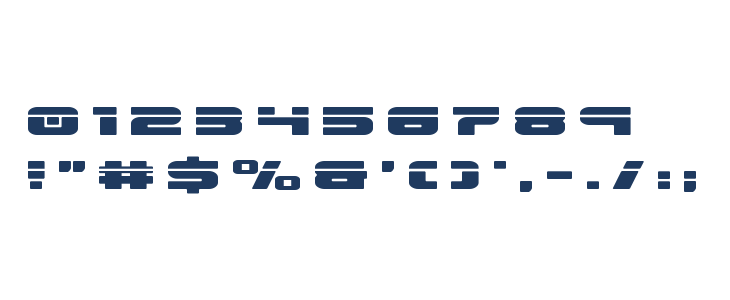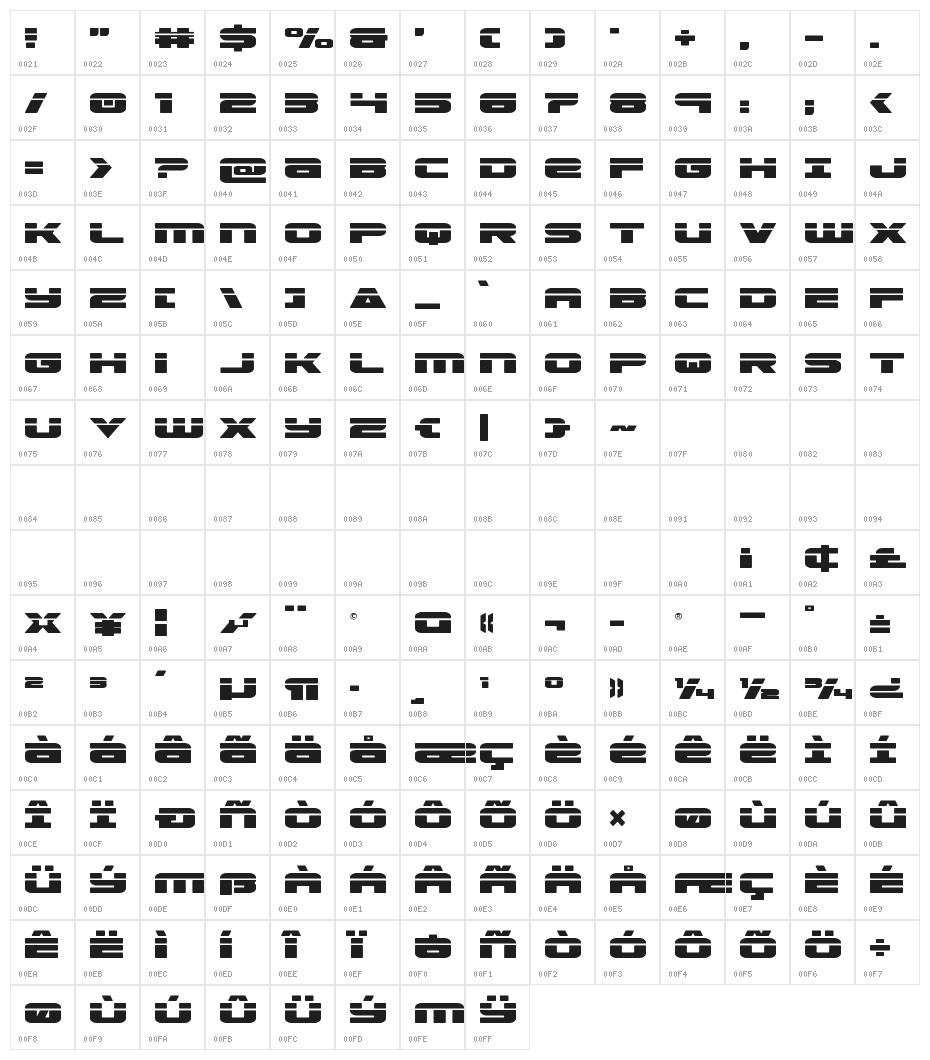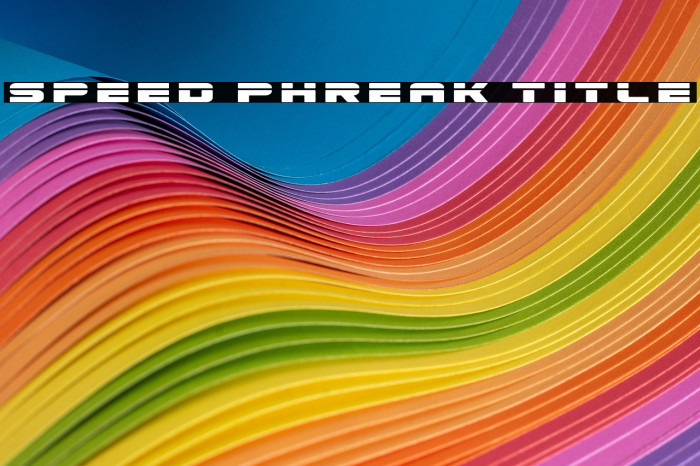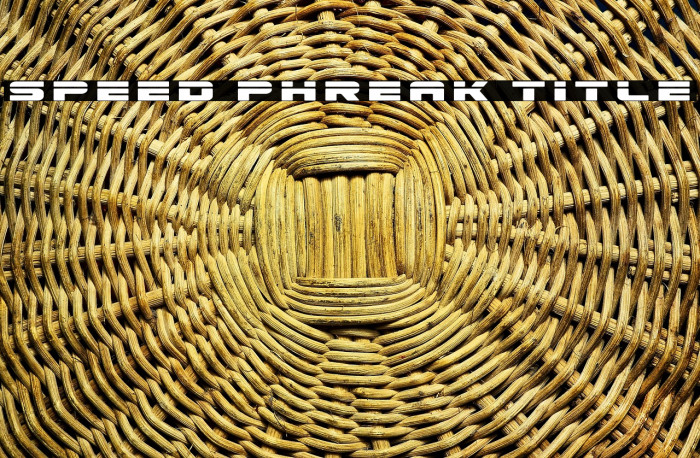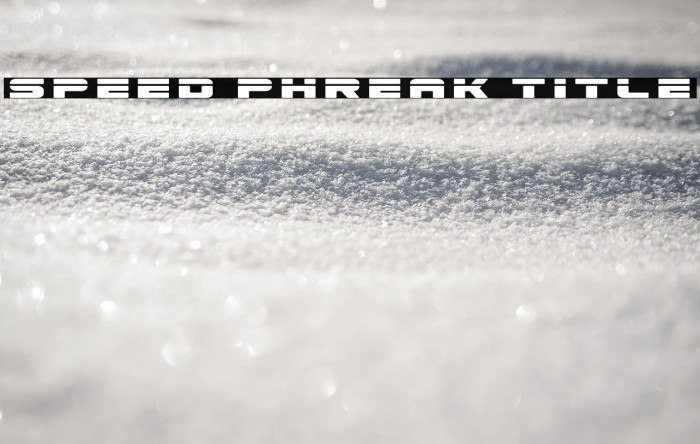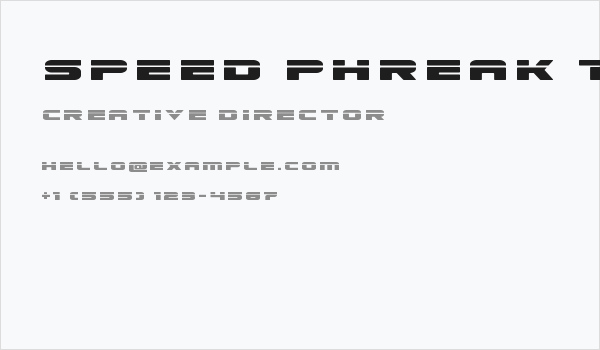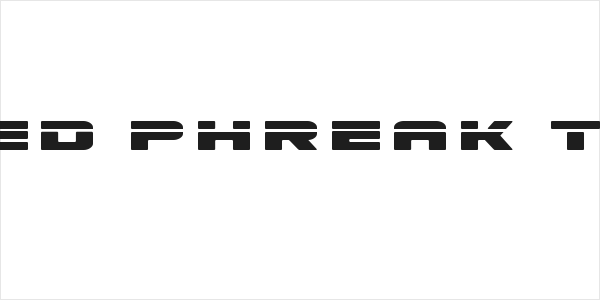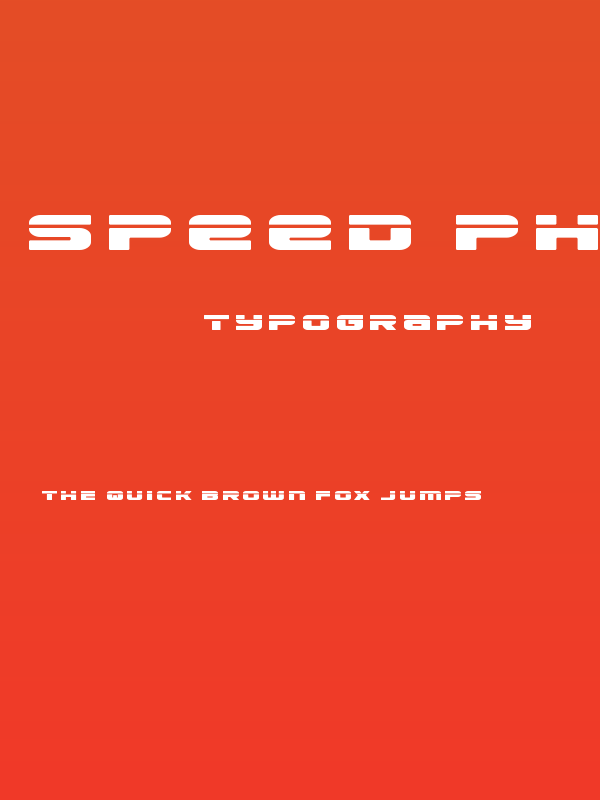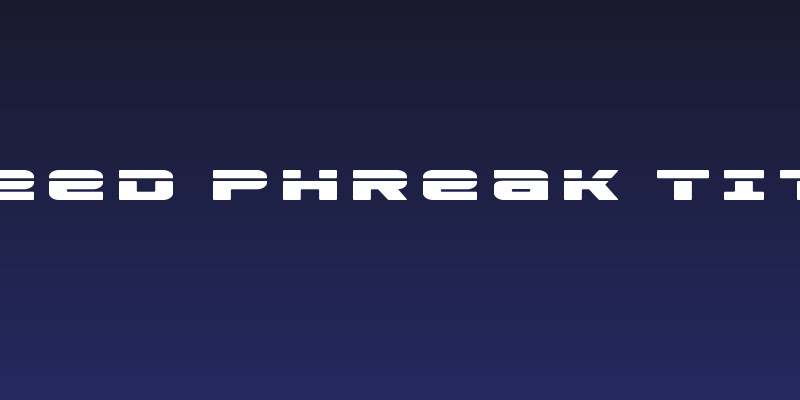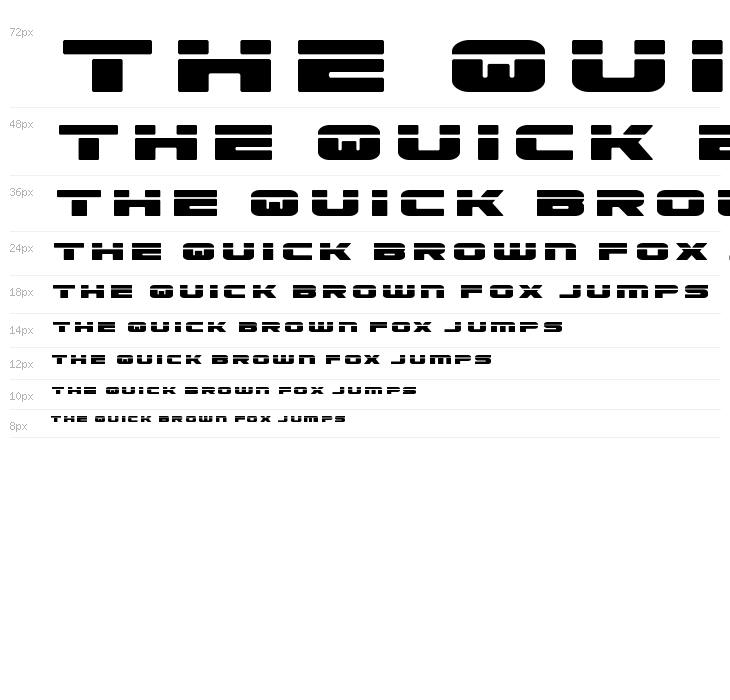
Speed Phreak Title Font
Speed Phreak Title Description
This font features a bold, futuristic design with a strong geometric influence. The characters are constructed with a combination of solid and cut-out sections, creating a dynamic and high-tech appearance. The uppercase and lowercase letters share a consistent style, emphasizing uniformity and modernity. The numerals and special characters maintain this cohesive look, making the font suitable for digital and tech-related themes. Its boldness and unique structure make it stand out, ideal for projects that require a striking visual impact.
Proposed ProjectsIdeal for tech branding, video game titles, sci-fi posters, and digital interfaces.